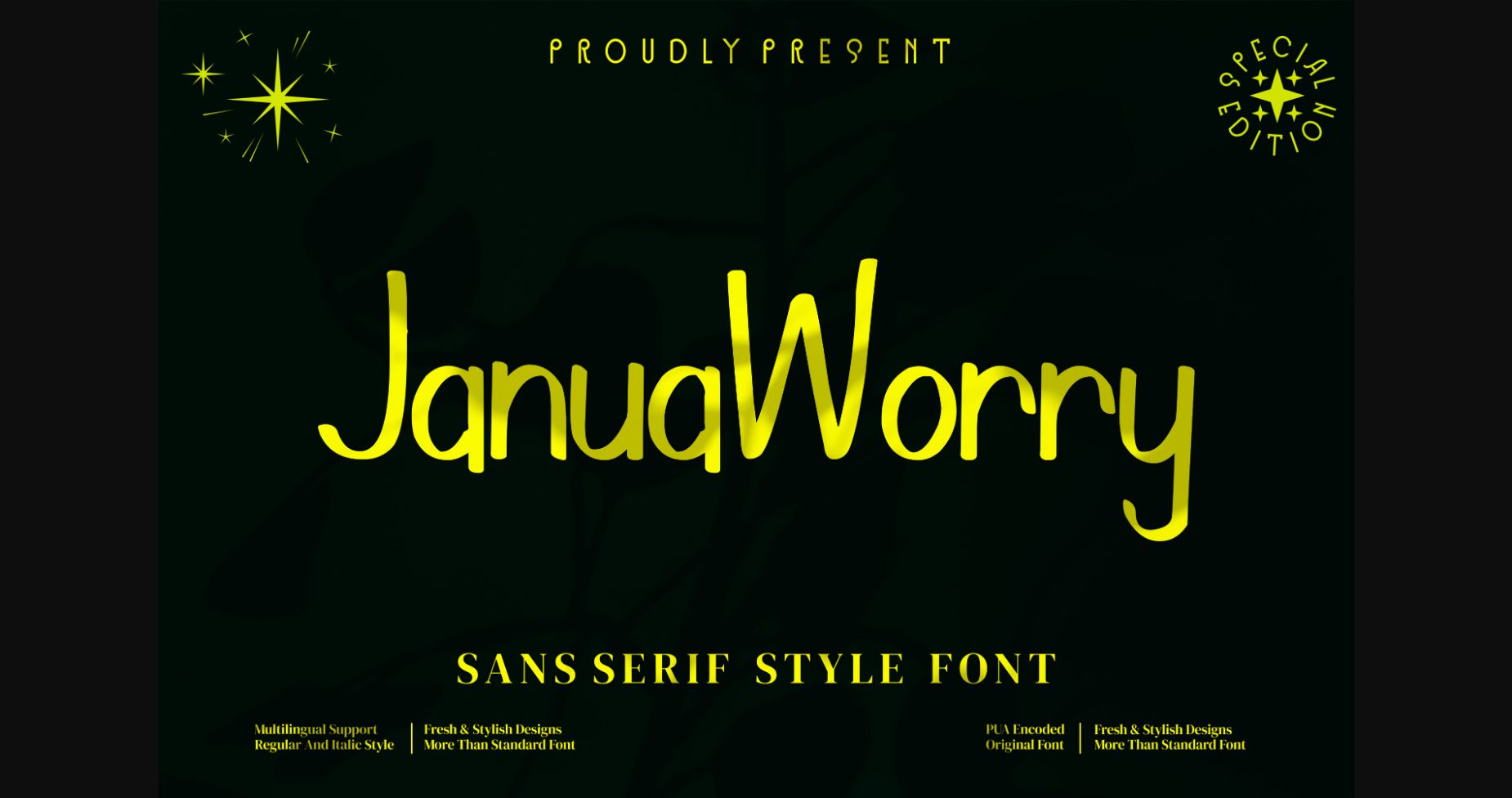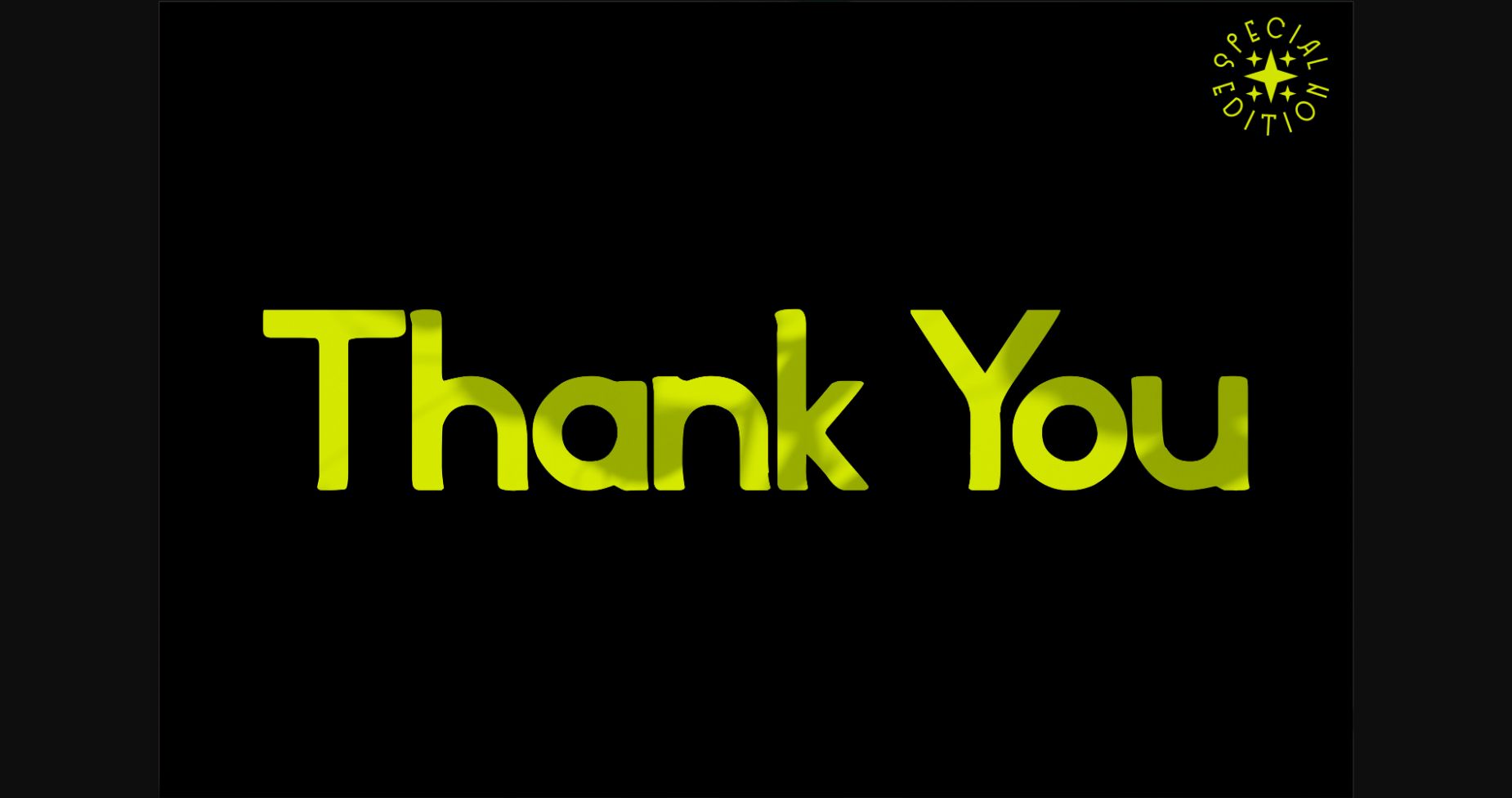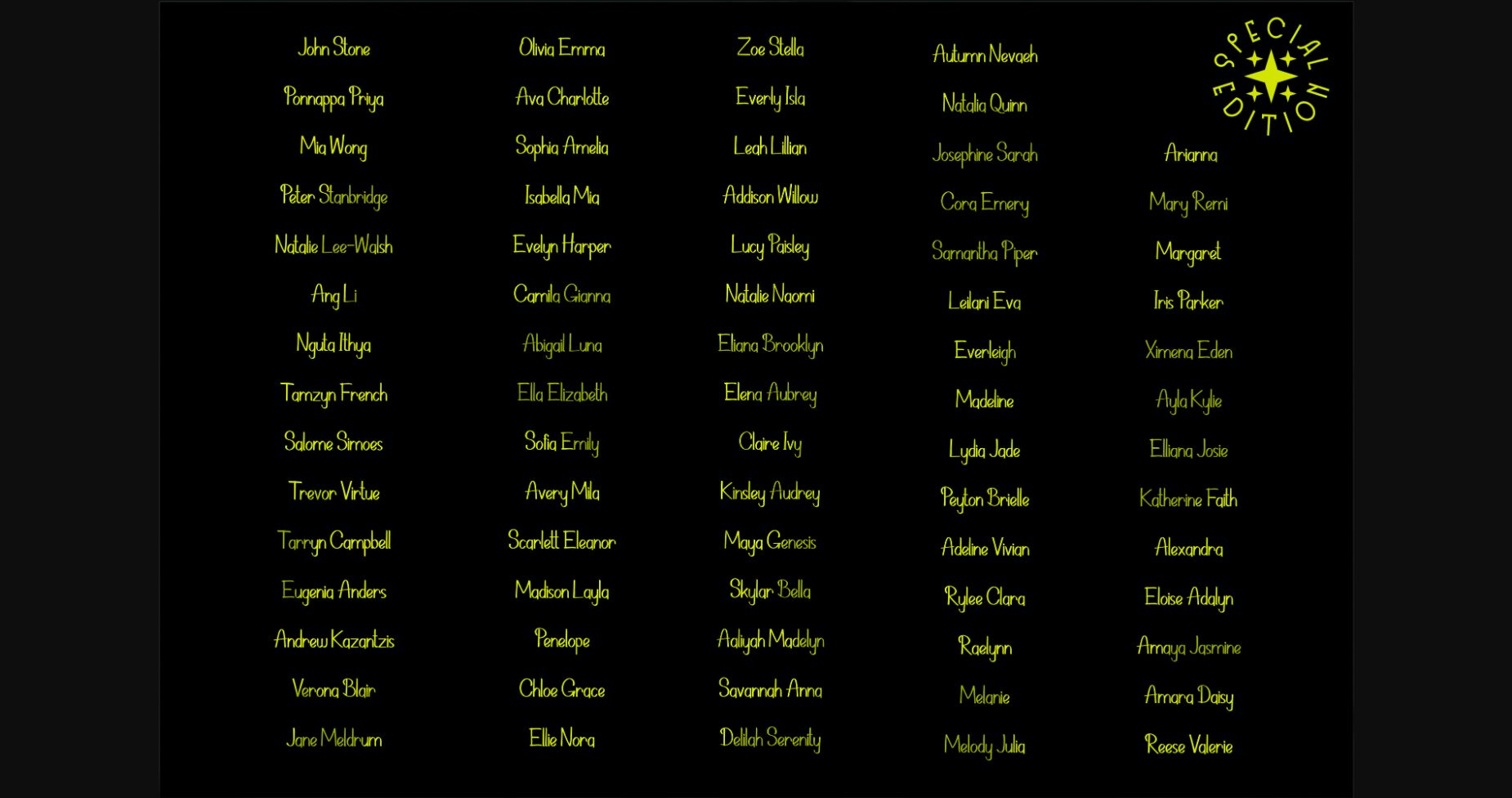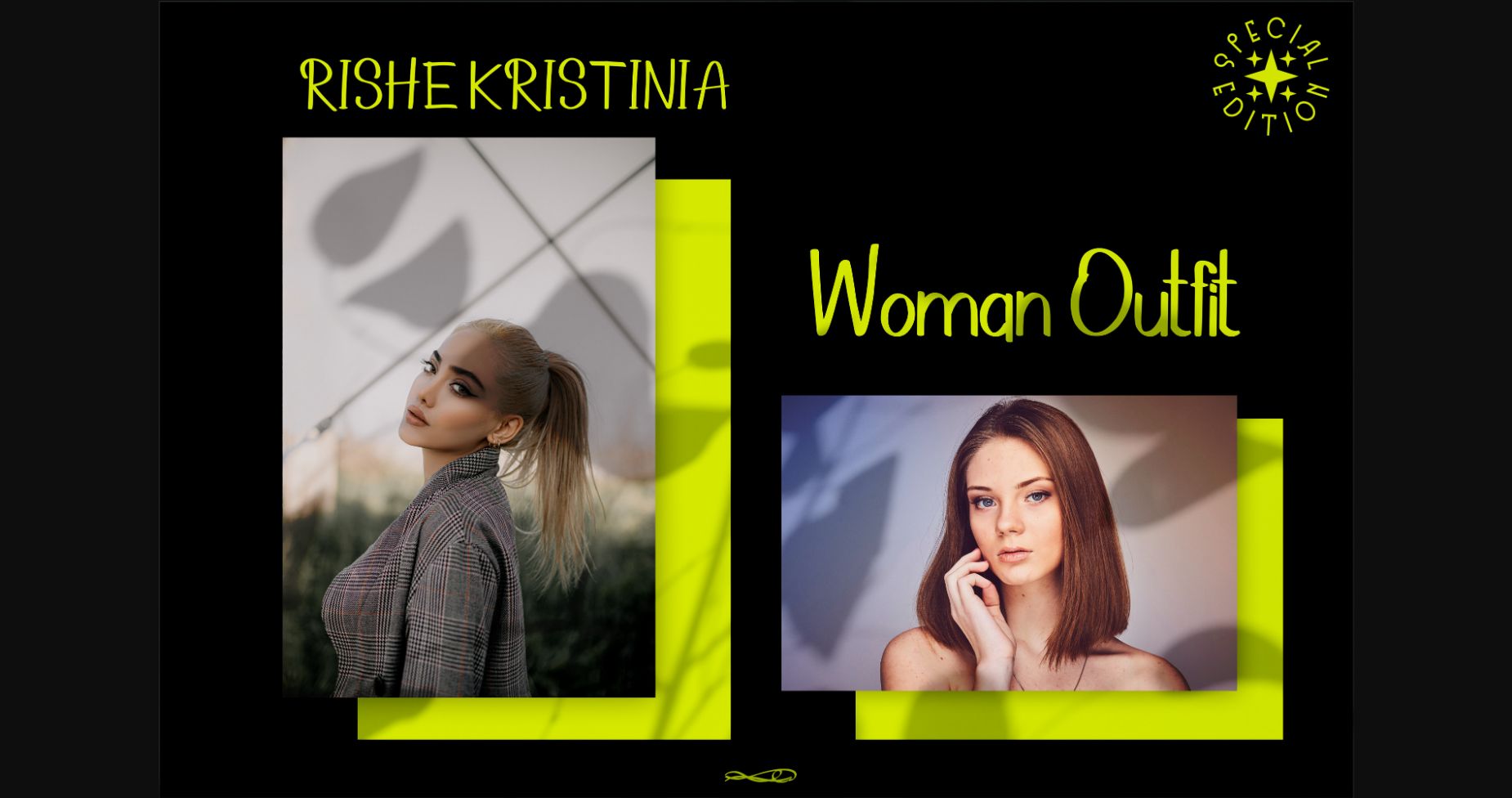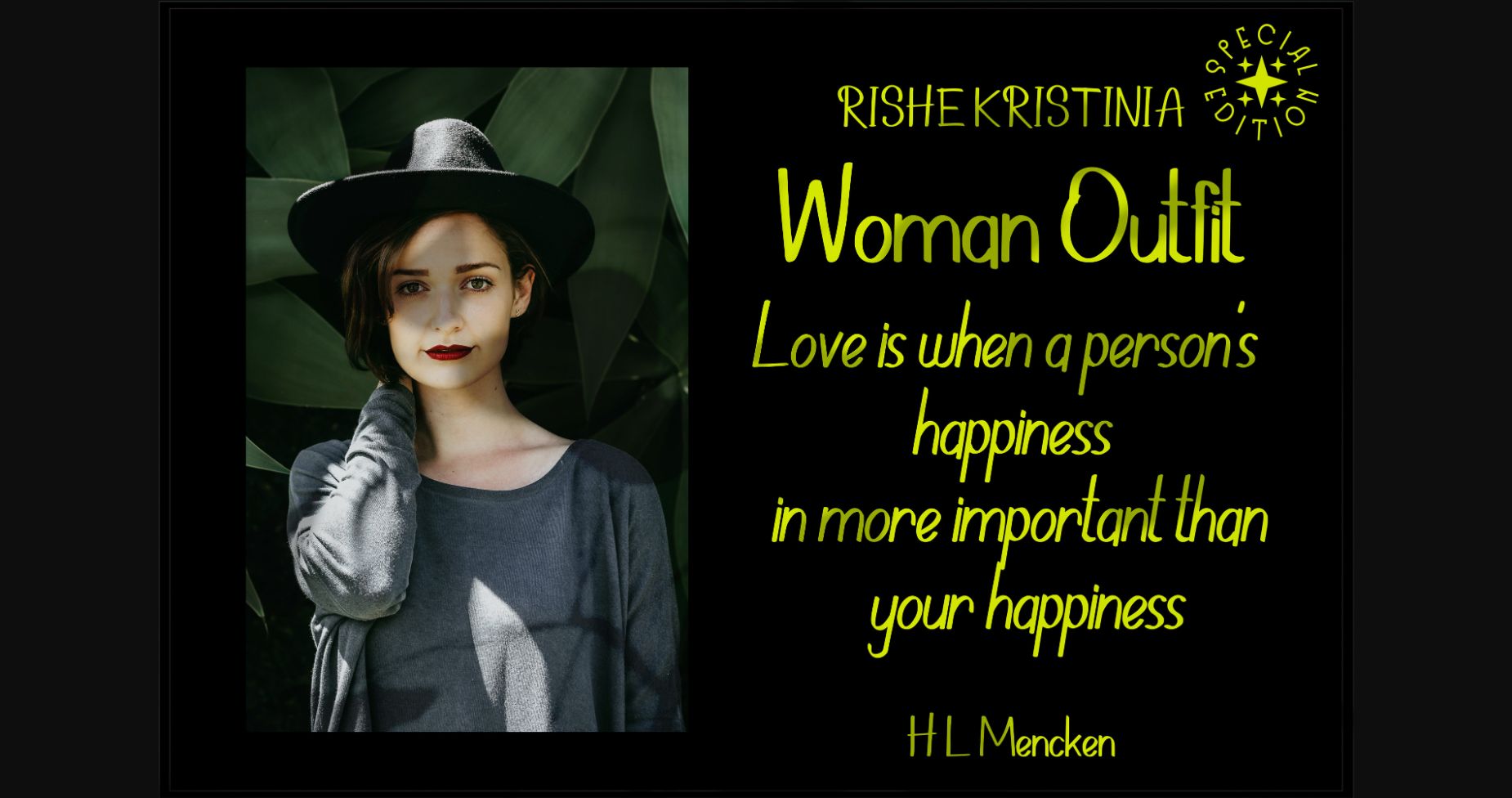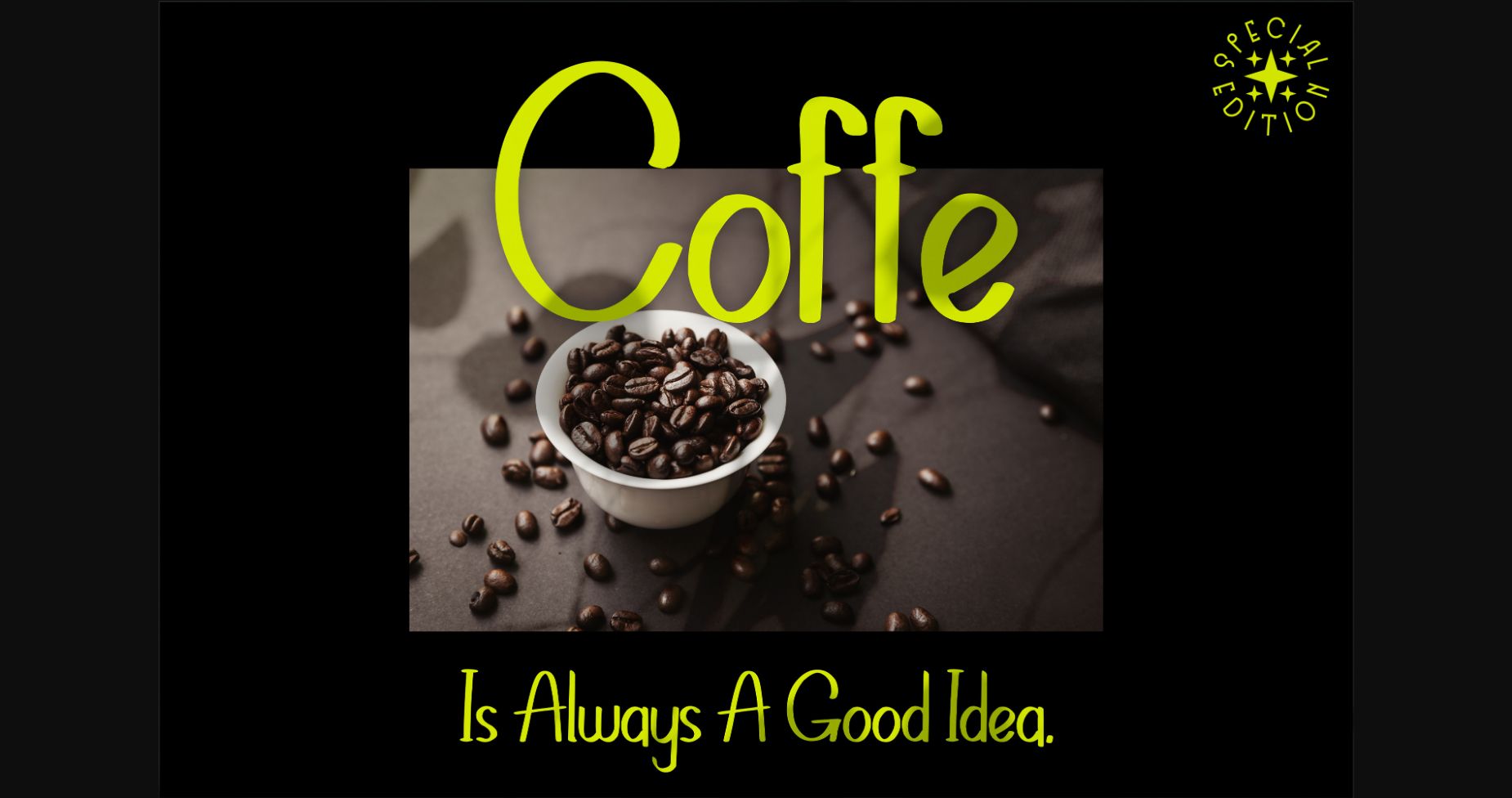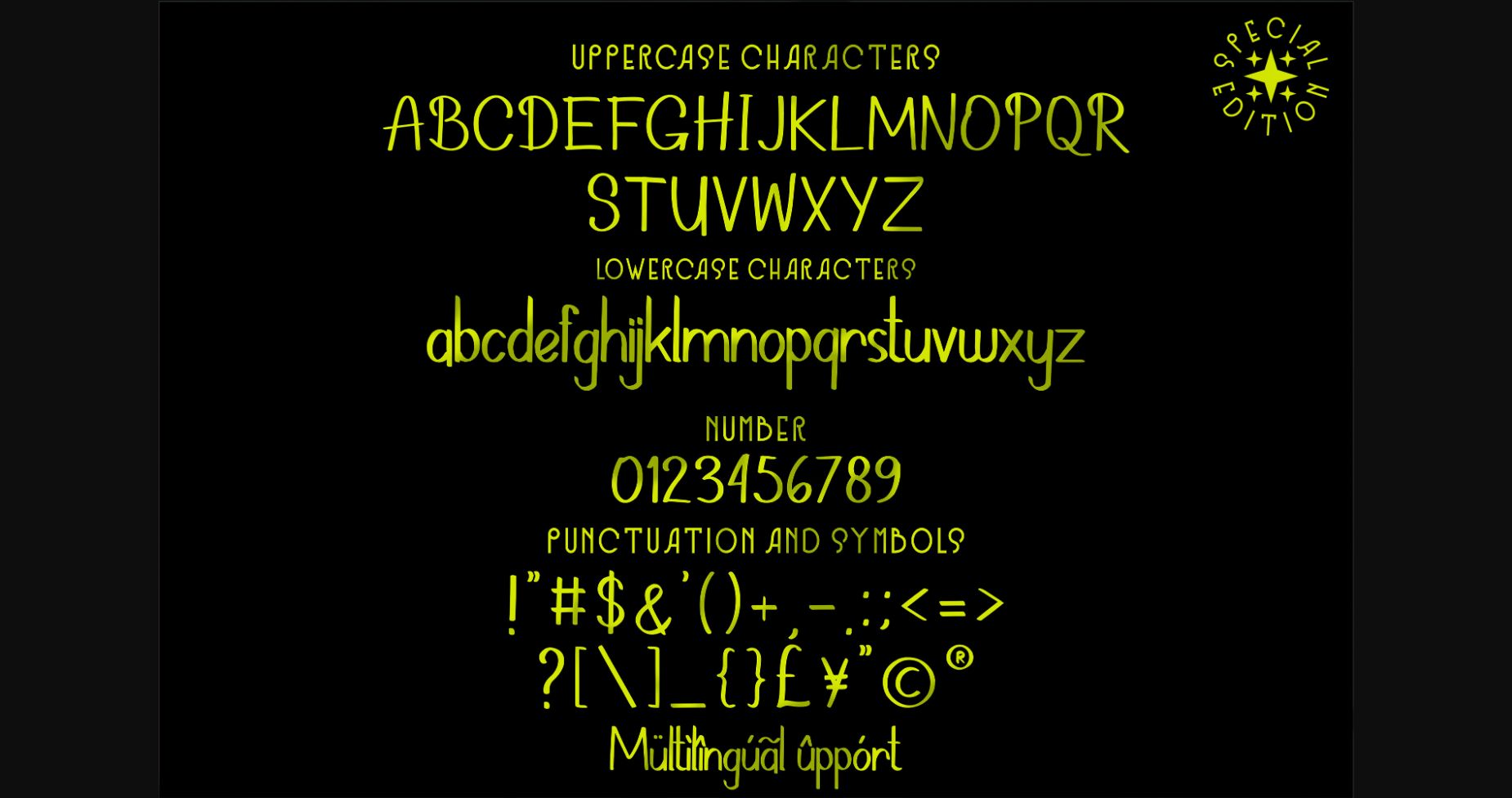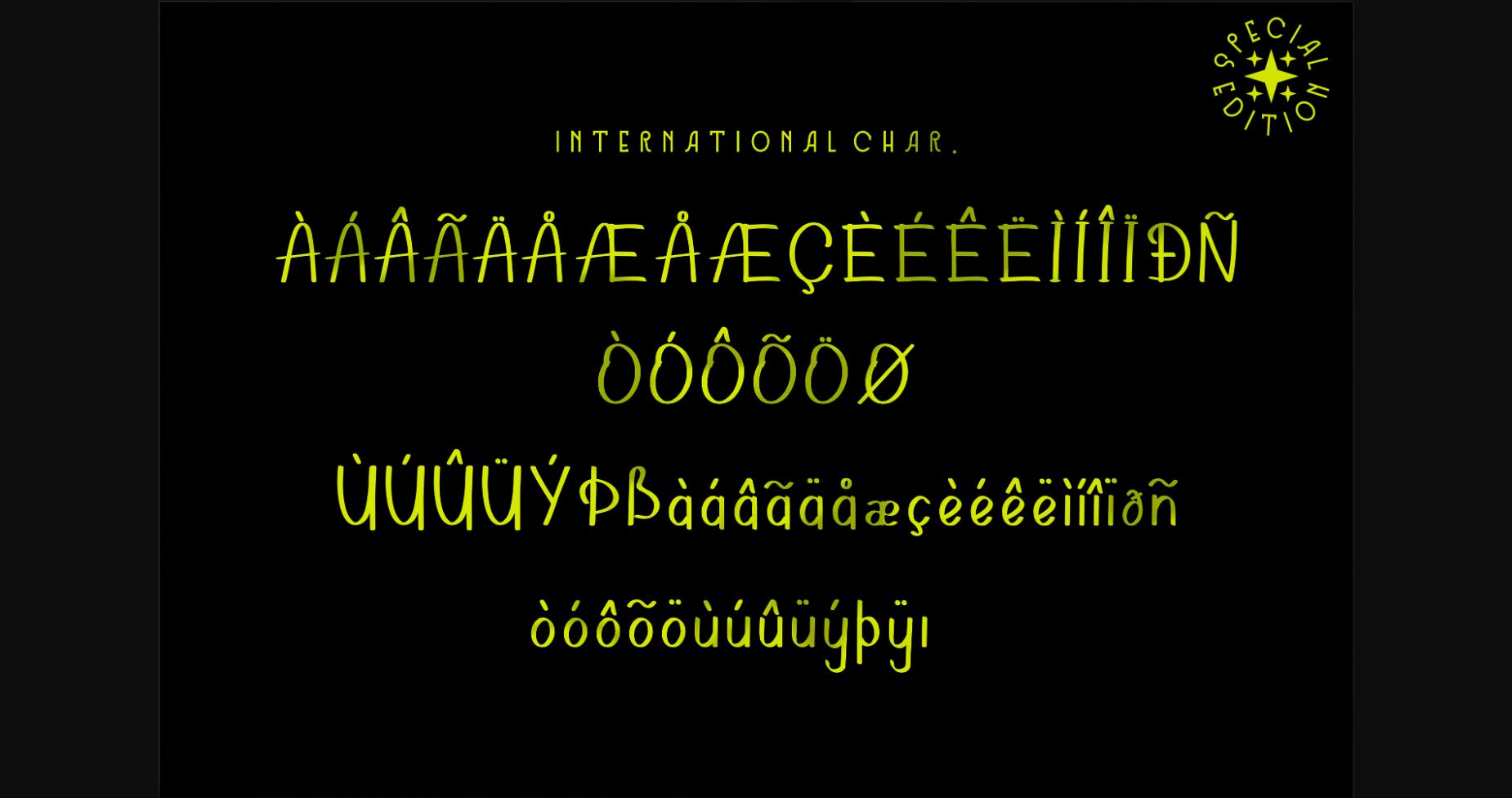
About Januworry Font
Januworry is a delicate and thin lettered sans serif font. It looks great on logos, branding projects, homeware designs, product packaging, mugs, quotes, posters and a variety of luxury projects that need a premium signature taste.